Choosing the Best Bold Halloween Fonts for Your Projects
Bold Halloween fonts make short phrases feel louder, darker, and easier to read across signs, shirts, stickers, invitations, and social graphics. I look for substantial letterforms that can hold their shape at a distance while still delivering the cracked edges, dripping details, monster features, or gothic drama that give Halloween lettering its personality.
The strongest options are not necessarily the most decorative. My favorites balance visual weight with usable counters, clear silhouettes, and enough spacing to survive cutting, printing, or resizing.
My top recommendation is The Horror for chunky outlined headlines, while Spook Halloween is the best pick for playful monster lettering and Grave Night suits darker gothic designs. Choose thick, open letterforms for cutting machines and small labels; reserve highly distressed, dripping, or sharply pointed fonts for large titles where their details remain visible.
| Font | Best for | Format or style |
|---|---|---|
| The Horror | Posters and shirt slogans | Chunky outlined display |
| Spook Halloween | Kids' party graphics | Monster decorative font |
| Grave Night | Gothic merchandise | Bold blackletter |
| Haunted Halloween | Slime and blood effects | Dripping display font |
| Super Horror | Retro spooky designs | Groovy display font |
| Horror Monster | Action-style headlines | Heavy horror display |
| Freaky Zombie | Comic horror projects | Gooey display font |
| Dread Monster | Dark apparel graphics | Blackletter font |
Best Bold Halloween Fonts for Spooky Projects
1. The Horror
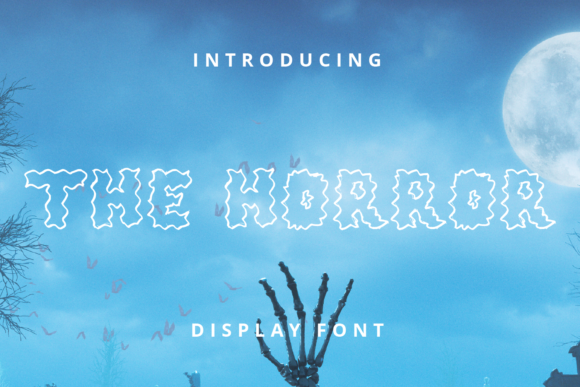
The Horror is a bold, chunky outlined display font for designers who want Halloween wording to dominate a poster, shirt, or party sign. Its broad characters create a substantial headline shape, while the outline adds separation from busy backgrounds and illustrated elements.
I would use it for short phrases rather than long sentences, since the heavy construction already carries plenty of visual energy. The outlined areas may also require careful weeding at very small sizes, so larger vinyl decals, sublimation prints, and printable signage are safer applications.
Best for: Halloween posters, T-shirt slogans, haunted-house signs
Key features: chunky letters, outlined construction, strong headline presence
2. Spook Halloween
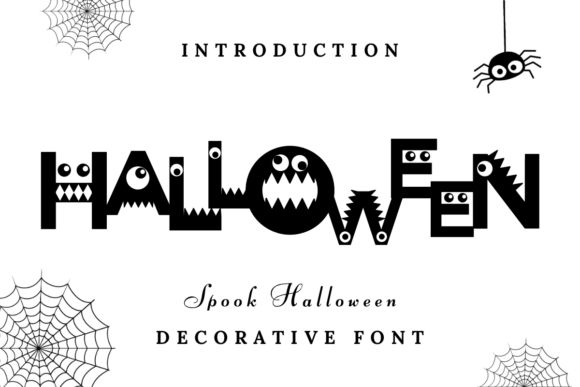
Spook Halloween is a bold decorative font filled with monster-inspired details, making it a natural fit for playful party graphics and kid-friendly spooky designs. Teeth, eyes, cutouts, and irregular shapes give individual letters their own personalities without losing the impact of a heavy uppercase style.
My take is that this font performs best when the lettering is the main illustration. A simple background lets its internal details do the work. Avoid shrinking it into favor-tag text, because the small eyes and tooth shapes will be easier to appreciate on banners, shirts, and large stickers.
Best for: kids' parties, classroom decorations, monster shirts
Key features: uppercase letters, monster details, playful heavy shapes
3. Grave Night
Grave Night is a bold blackletter font for gothic Halloween titles, dark merchandise, horror covers, and heavy-metal-inspired branding. Its angular strokes give words an imposing silhouette, while the traditional blackletter influence adds more seriousness than a cartoon monster font.
I like this option for mature designs built around black, bone, deep red, or tarnished metallic palettes. Blackletter can become dense when every word is capitalized, so I would keep the phrase concise and provide generous spacing around it. It is less suited to cheerful school-party crafts.
Best for: gothic shirts, horror book covers, metal-style graphics
Key features: angular strokes, blackletter structure, dark dramatic tone
4. Haunted Halloween
Haunted Halloween is a thick dripping display font for blood, slime, and haunted-house themes. The heavy upper portions keep the letters readable, while the hanging drips add an unmistakable horror effect that can carry a simple design without extra decorative elements.
I would choose this font for one large phrase on a poster, treat bag, or shirt rather than stacking several lines of detailed lettering. Thin drip endings can be challenging for tiny adhesive-vinyl cuts, so printable transfers, sublimation, and larger paper projects may preserve the design more reliably.
Best for: haunted-house signs, slime graphics, horror shirts
How do I make spooky lettering readable on a Halloween shirt?
Make spooky shirt lettering readable by limiting the phrase, enlarging the main words, and creating strong contrast with the garment. Use one decorative Halloween font for the headline and a clean supporting font for smaller text, dates, or names. Preview the design at the actual print dimensions rather than judging it only while zoomed in. Check that counters remain open, drips do not merge, and thin spikes are not likely to break. A simple outline can improve separation on patterned or heathered fabric.